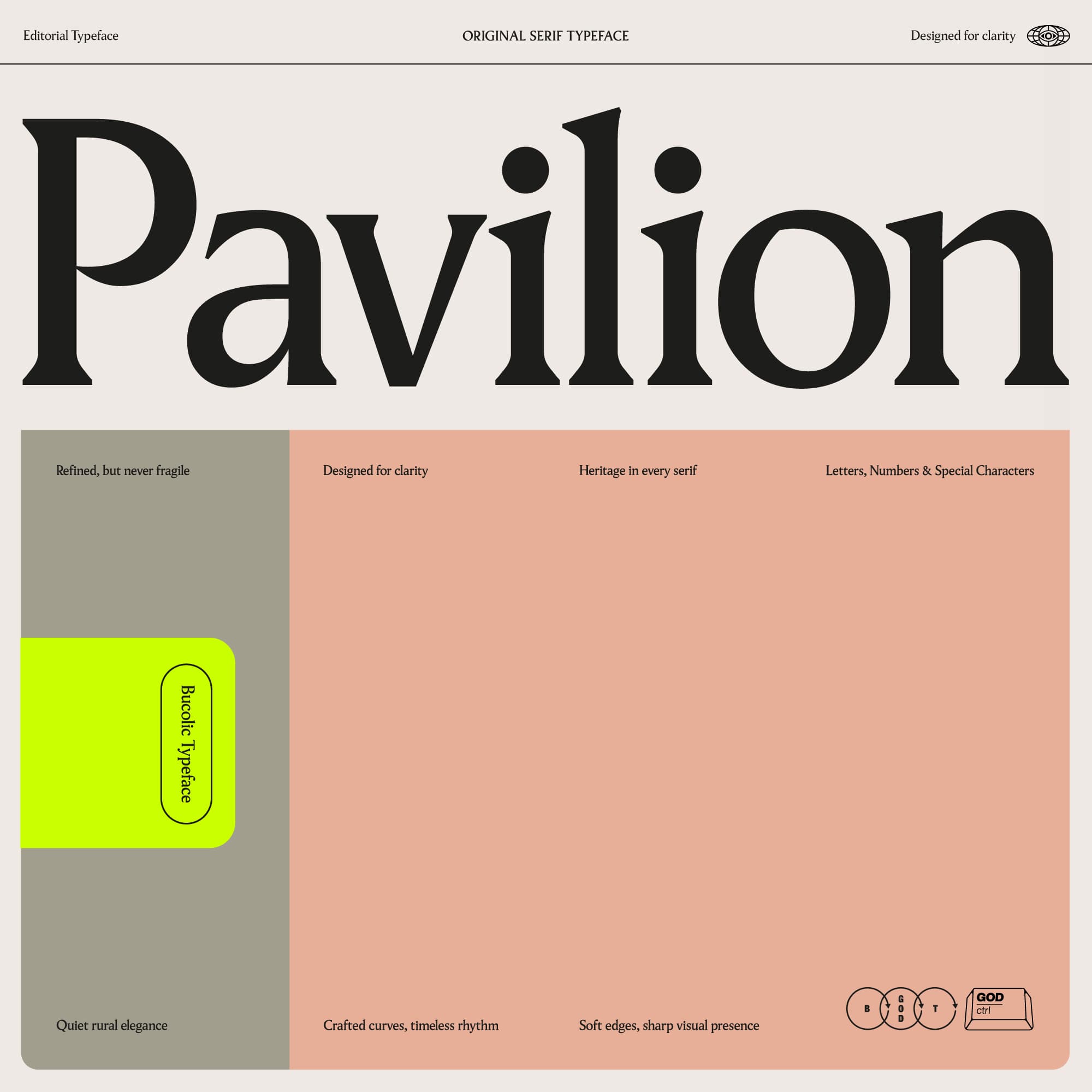
<p><strong>Pavilion is that serif you didn’t know you needed — until now!</strong> It’s all about balance, where tradition meets modern edges and refinement meets flow. Everything is designed on purpose: every curve and cut give smooth rhythms and can keep your long-form text even, readable, and human, but, at the same time, give energy to every title and headline.<br><br>The lowercase have soft curves, balanced spacing, and that perfect x-height that makes paragraphs read like butter. Every character has been fine-tuned to keep flow and texture on lock. The uppercase? Strong, balanced, and bold but not heavy.<br><br>Use it anywhere: body copy, titles, headlines, magazines, packaging, branding, websites — it belongs everywhere. Own it. Ctrl it.<br></p><p><strong><br>WHAT YOU GET:</strong></p><ul><li><p>One unique serif font ideal for every use</p></li><li><p>Special characters and punctuation included</p></li><li><p>215 total characters</p></li></ul><p></p><p><br><strong>FILES INCLUDED:</strong></p><ul><li><p>Pavilion_Regular.otf</p></li><li><p>Pavilion_Regular.ttf</p></li><li><p>Pavilion_Regular.woff2</p></li><li><p>Read me.txt</p></li></ul><p></p>